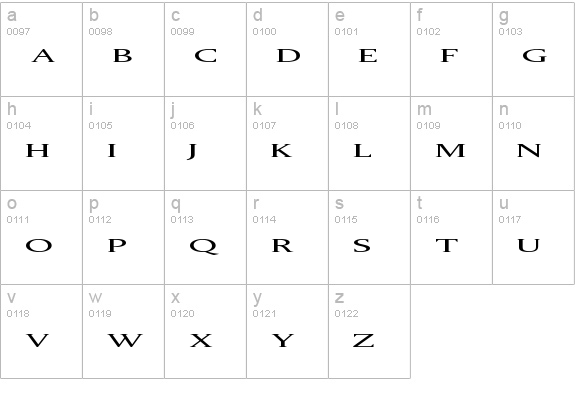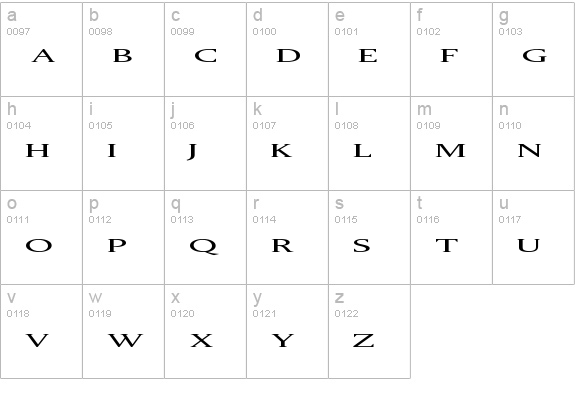
007 GoldenEye Font Details
The 007 GoldenEye font is a stunning display of sophistication and elegance, embodying the iconic style of the James Bond franchise. With its sleek and sleek design, this font exudes a sense of mystery and intrigue, capturing the essence of the world's most famous secret agent. The 007 GoldenEye font features bold, sharp lines that command attention and demand respect. Its exquisite details and intricate curves add a touch of refinement and class, making it the perfect choice for any design project that aims to captivate and impress. What sets the 007 GoldenEye font apart is not just its impeccable design, but also its accessibility. This font is freely available to download at FontsMarket.com, allowing designers and enthusiasts alike to effortlessly incorporate this timeless classic into their creative endeavors. Whether you're creating a movie poster, designing a logo, or crafting an invitation, the 007 GoldenEye font will effortlessly elevate your project to new heights. Its versatility and timeless appeal make it suitable for a wide range of applications, ensuring that your designs will stand out from the crowd. So why wait? Download the 007 GoldenEye font today at FontsMarket.com and unleash the power of this iconic typeface. With its free availability and undeniable charm, this font is a must-have for any design arsenal. Take your creations to the next level and let the 007 GoldenEye font be your secret weapon for success.